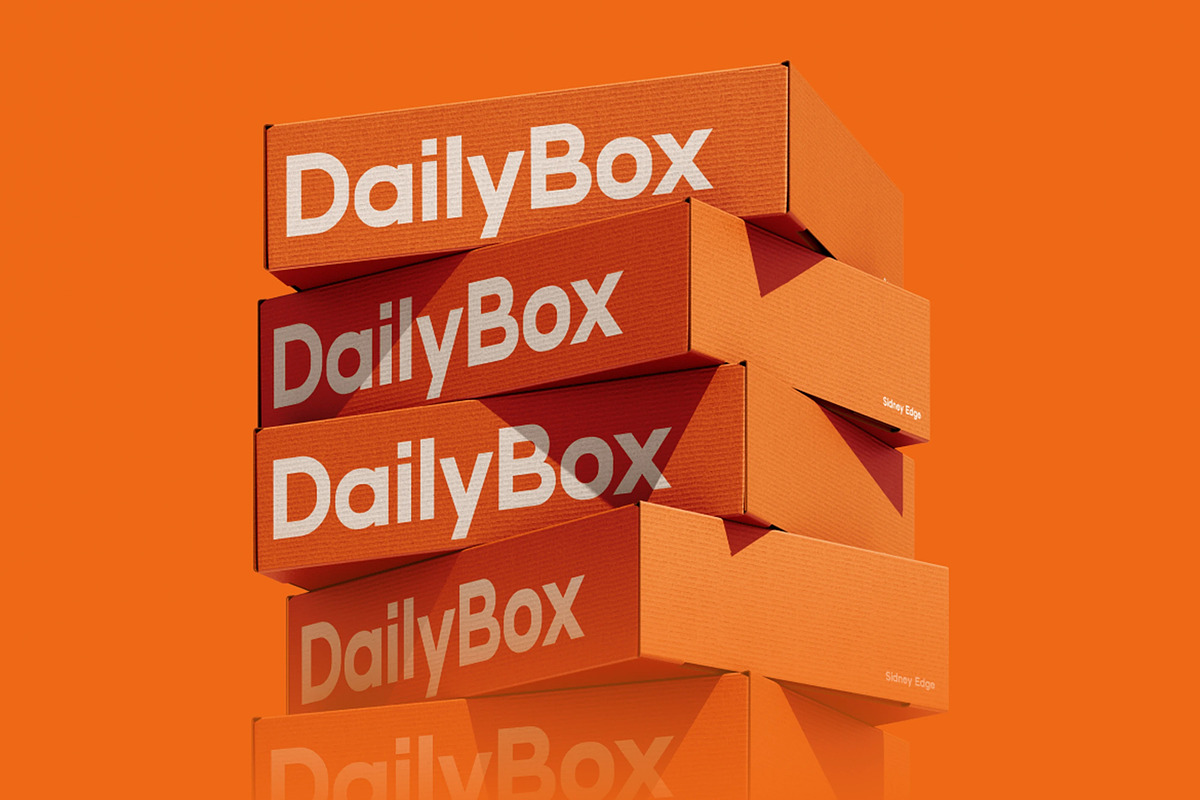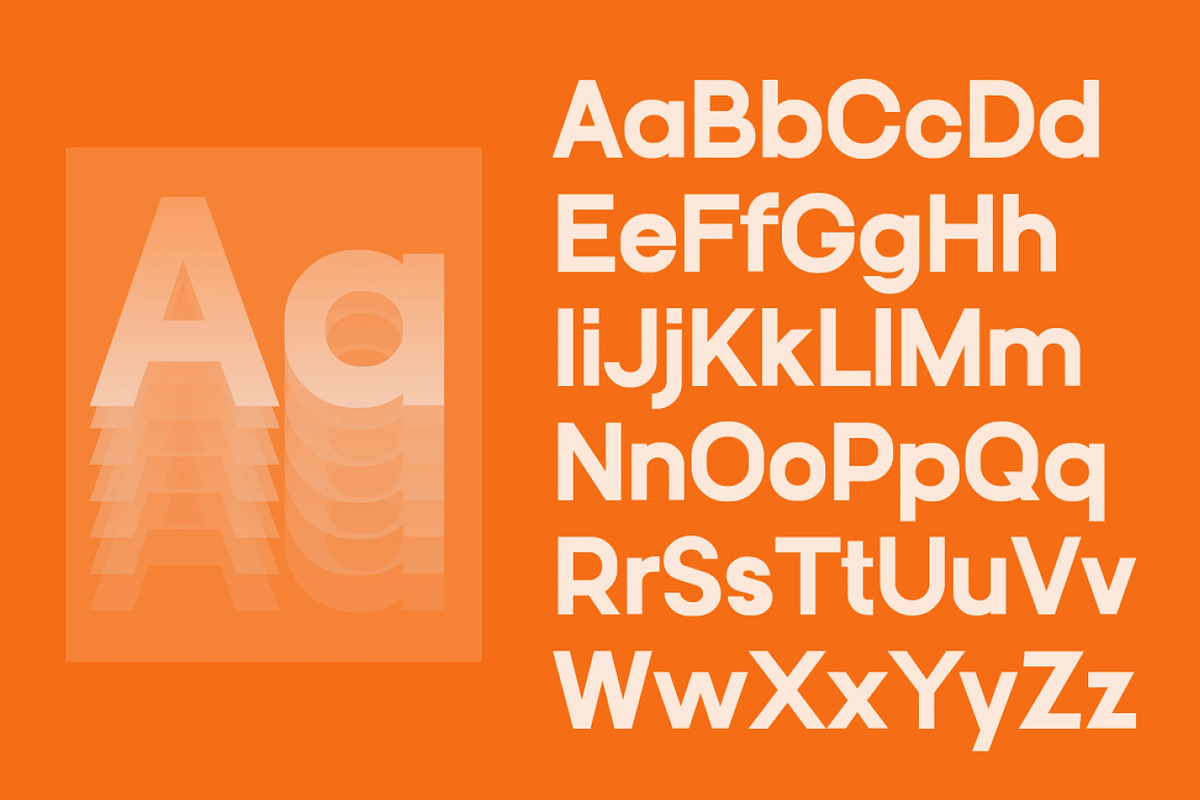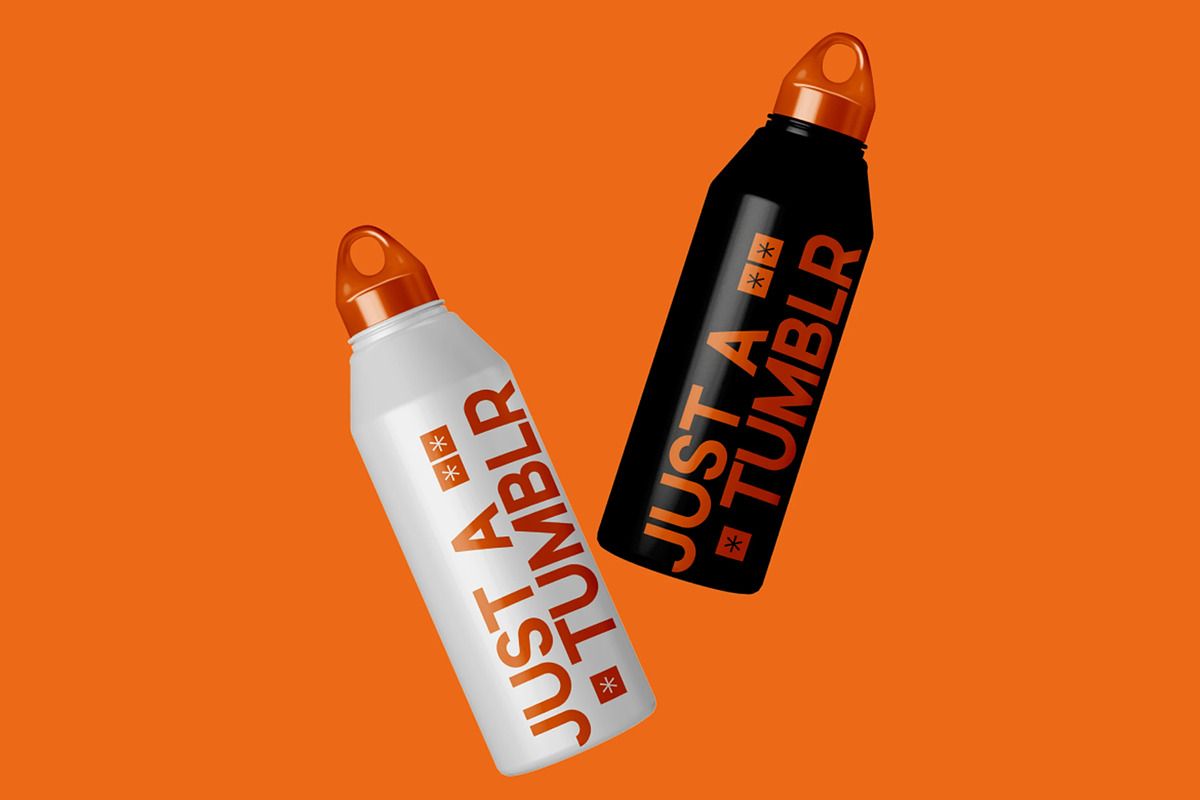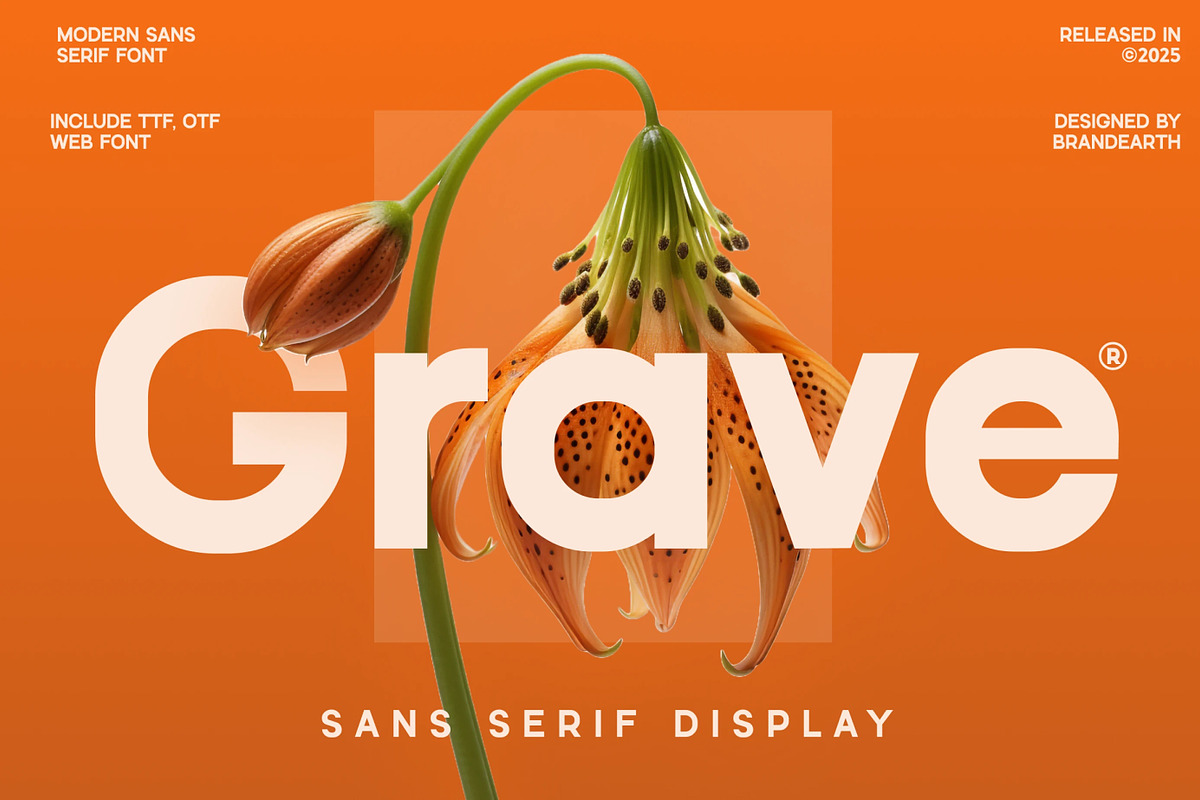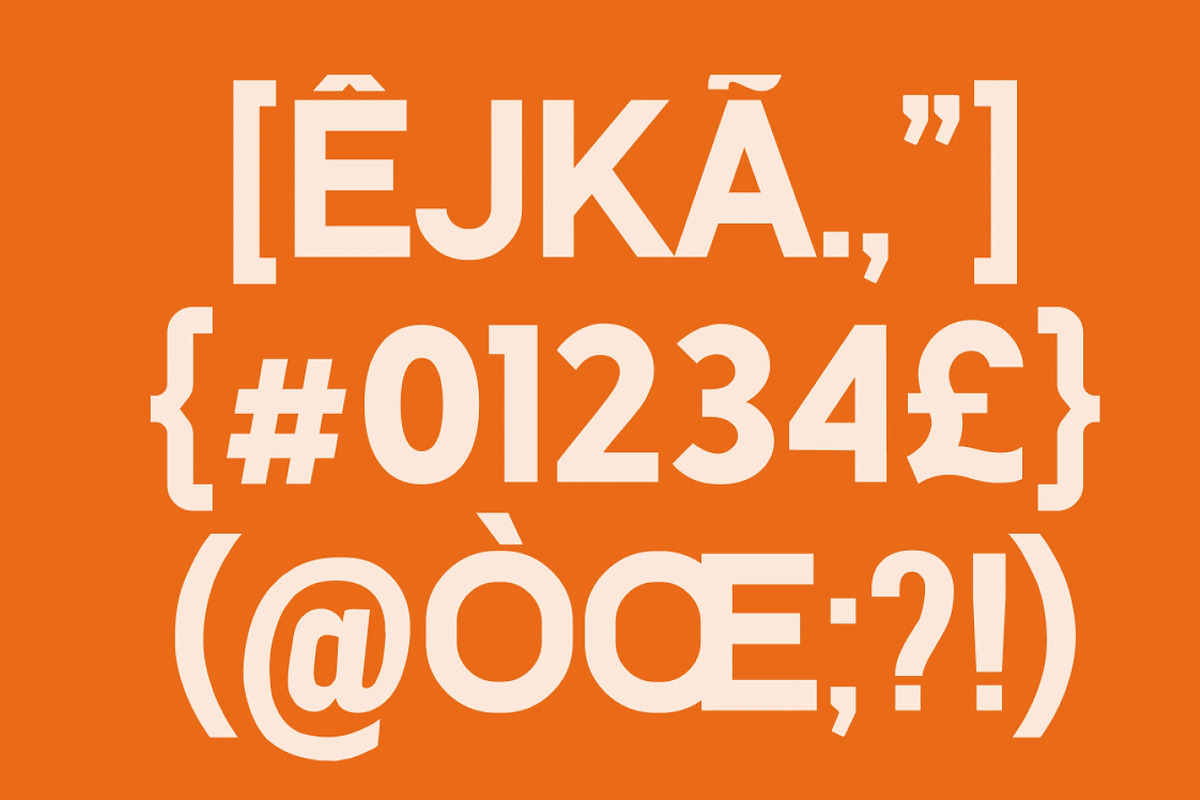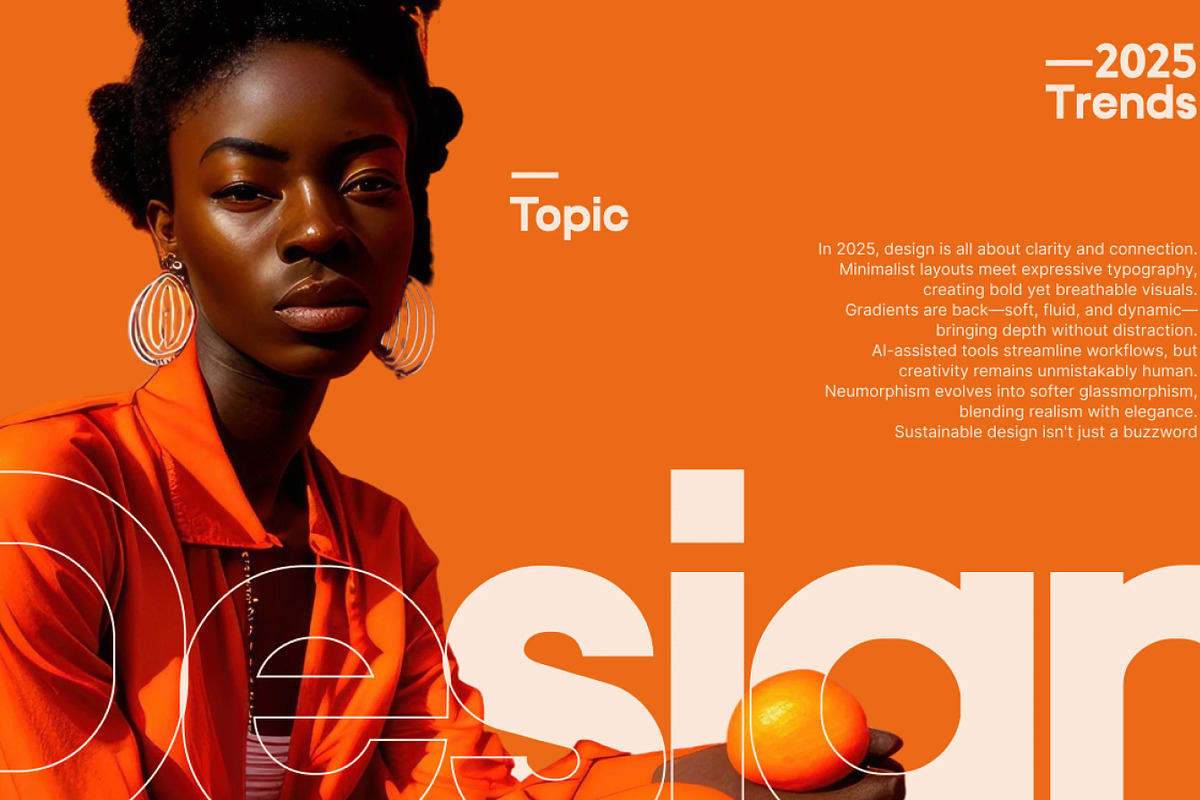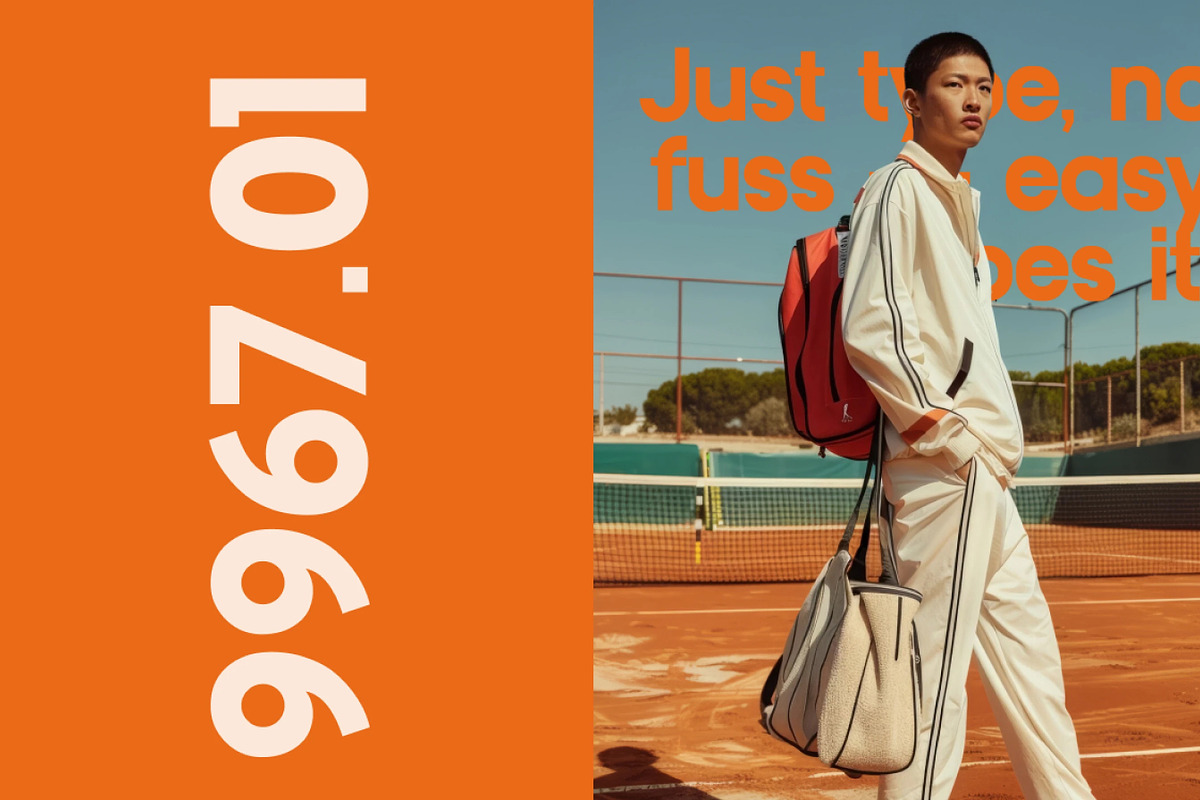
Grave – Modern Display Sans Serif
Grave is a striking modern sans serif font with bold geometry, clean terminals, and confident letterforms built for impact. With its heavy weight and smooth curves, Grave finds balance between professional function and visual appeal—making it an ideal choice for digital and print branding alike. The structured symmetry and generous spacing offer both power and precision, suitable for high-end logos and clear, memorable headlines.
Designed for clarity and aesthetic control, Grave delivers a polished look that resonates across tech, corporate, fashion, automotive, and editorial industries. Whether it’s a bold heading in a startup pitch deck or a confident tagline on luxury packaging, this typeface adds consistency and boldness to every brand touchpoint. Its all-caps strength and multilingual flexibility open doors to global design reach.
Main Features
Uppercase & Lowercase characters
Numeral & Punctuations
Relevance & Use Cases: Grave is perfect for logo design, corporate branding, technology startups, automotive advertising, minimalist posters, modern websites, mobile apps, business presentations, editorial layouts, packaging design, and digital product launches.